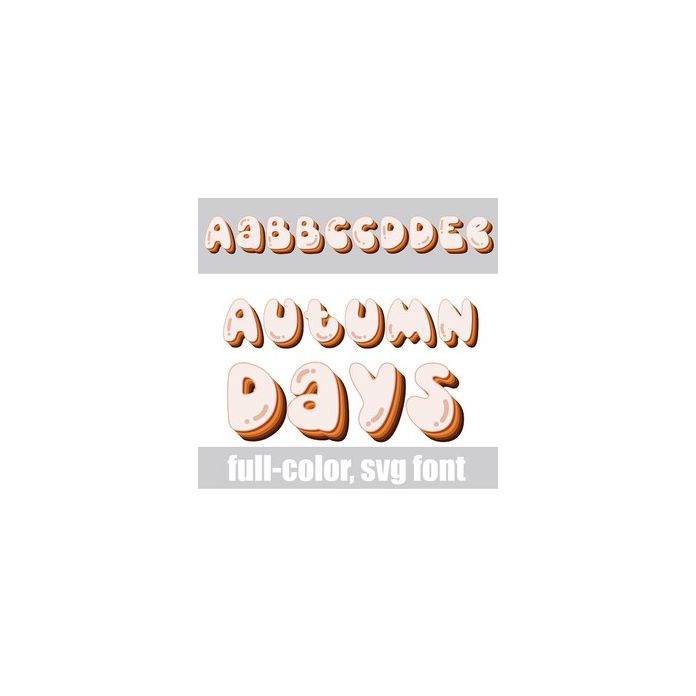
This full-color font features a retro style font in autumn colors. There is an alt case w/ additional colors you can access through your system or Silhouette's glyph map.